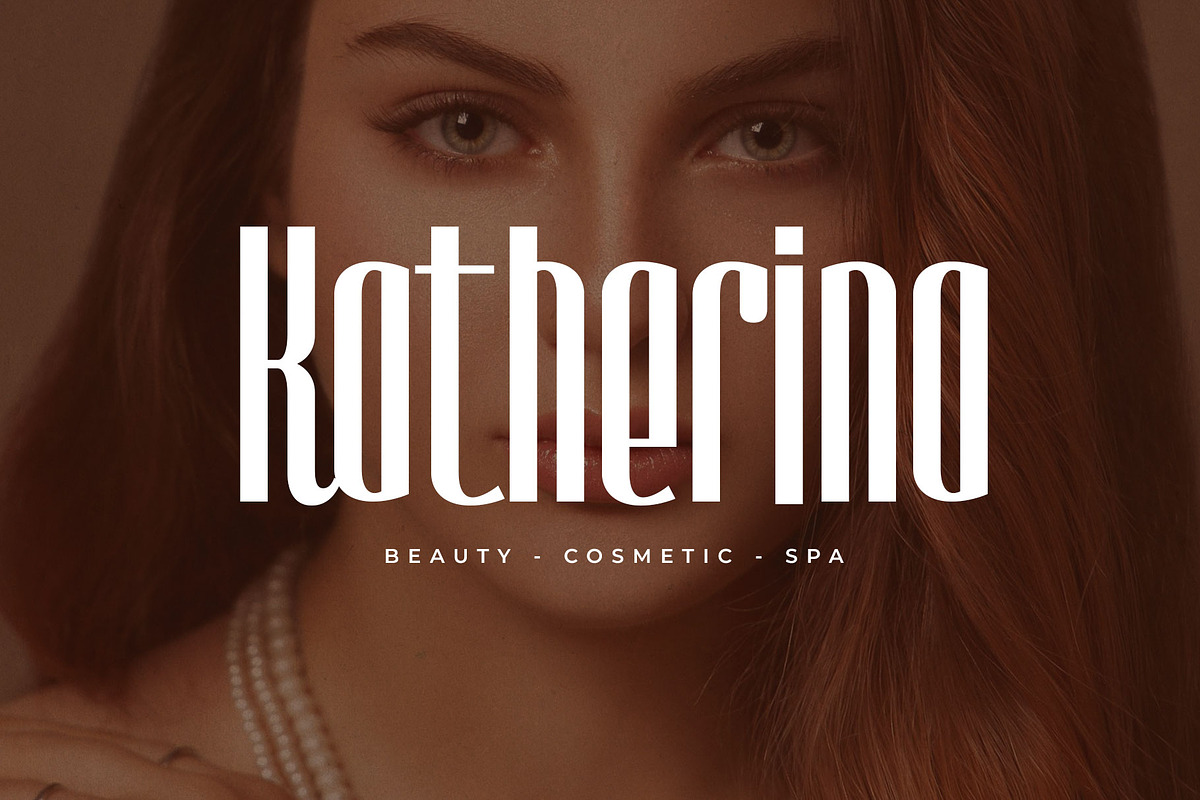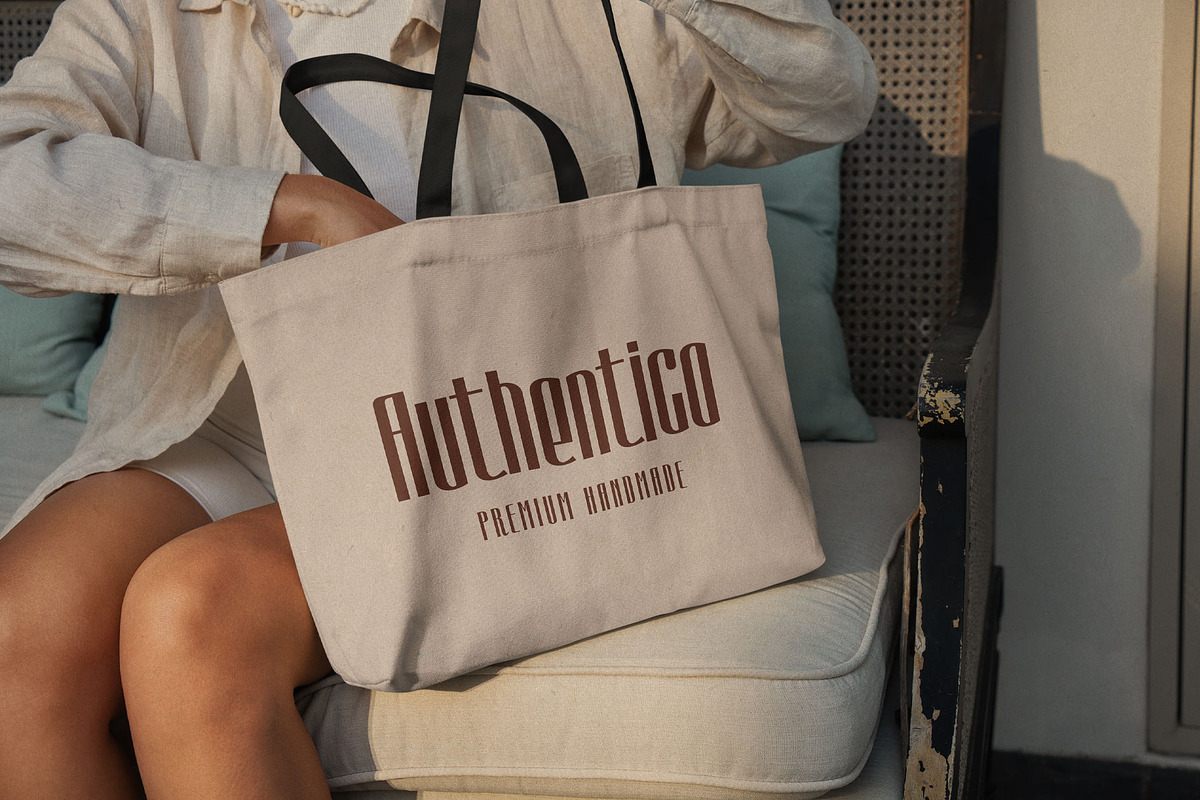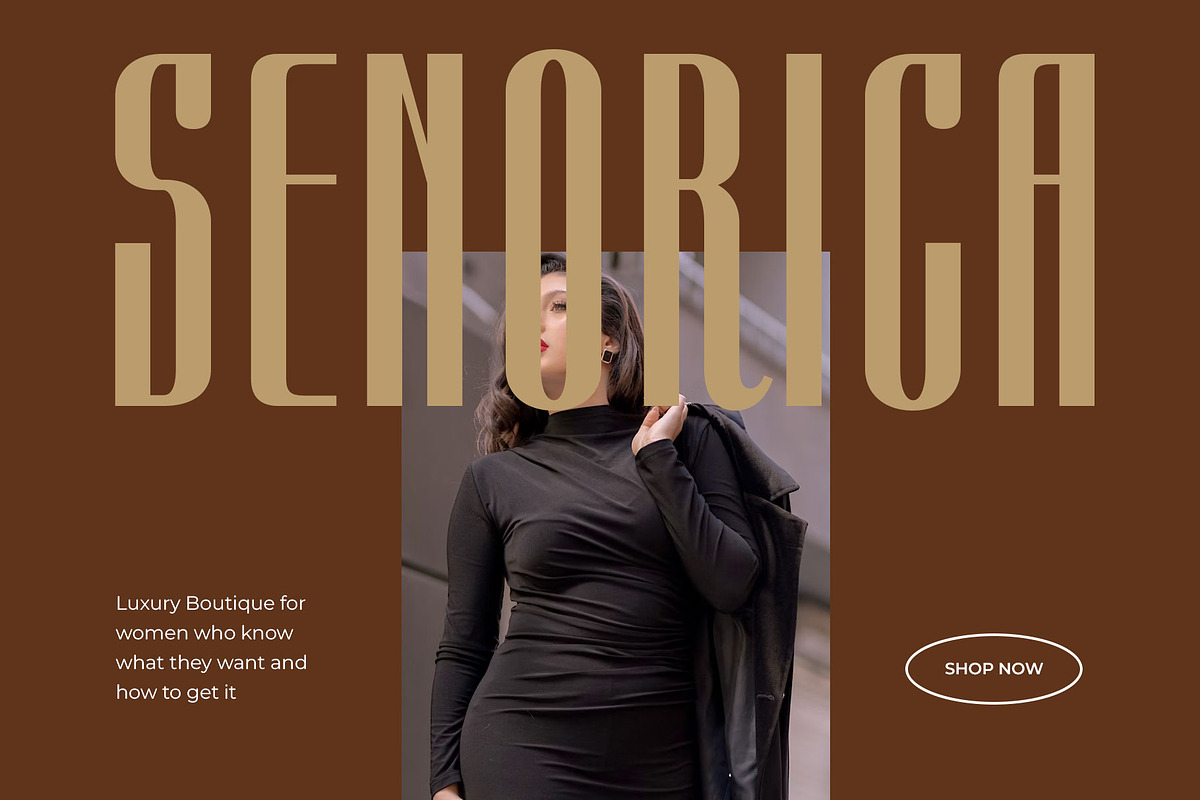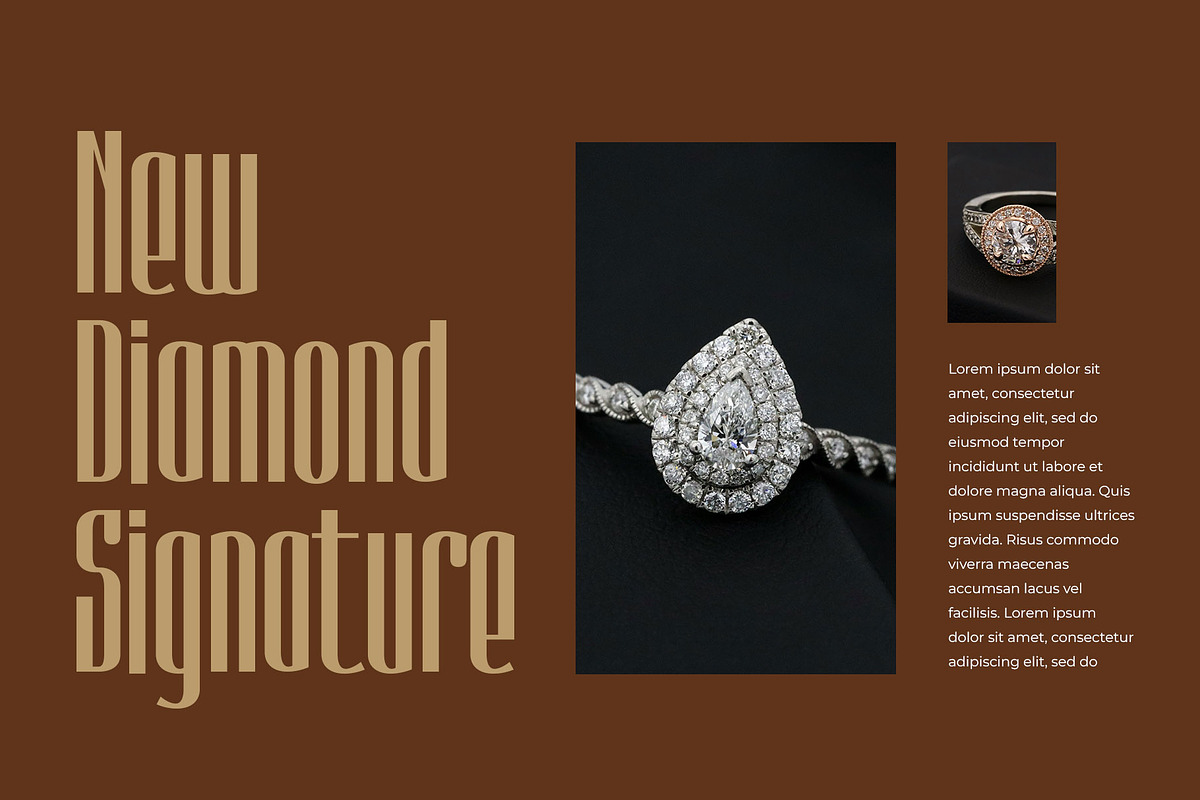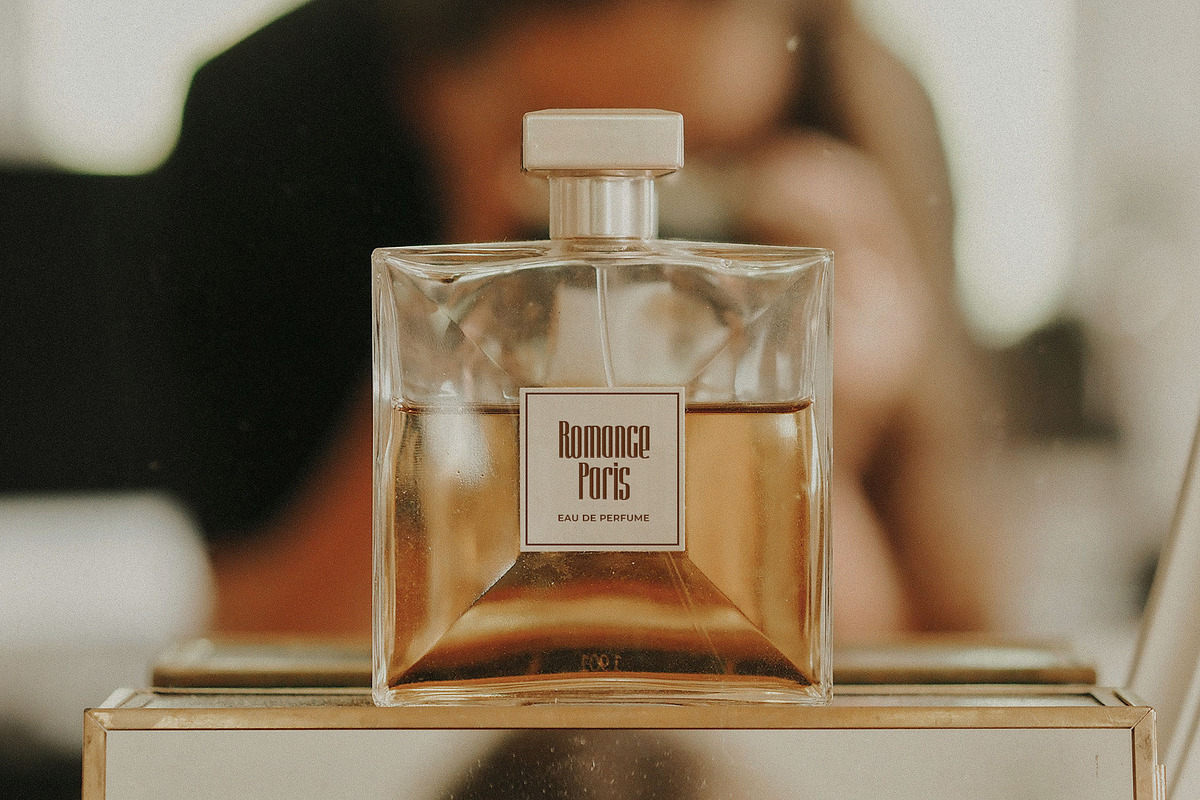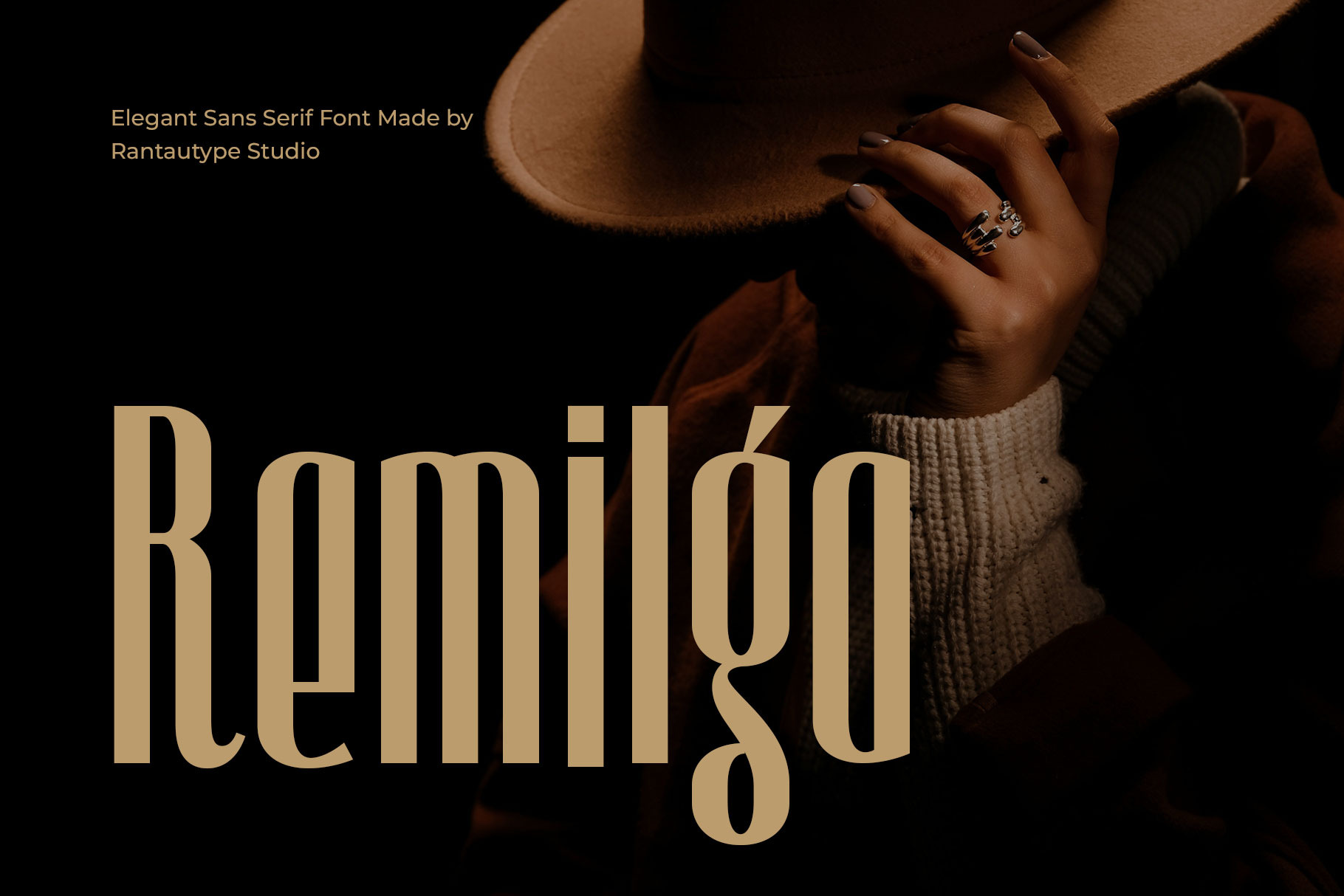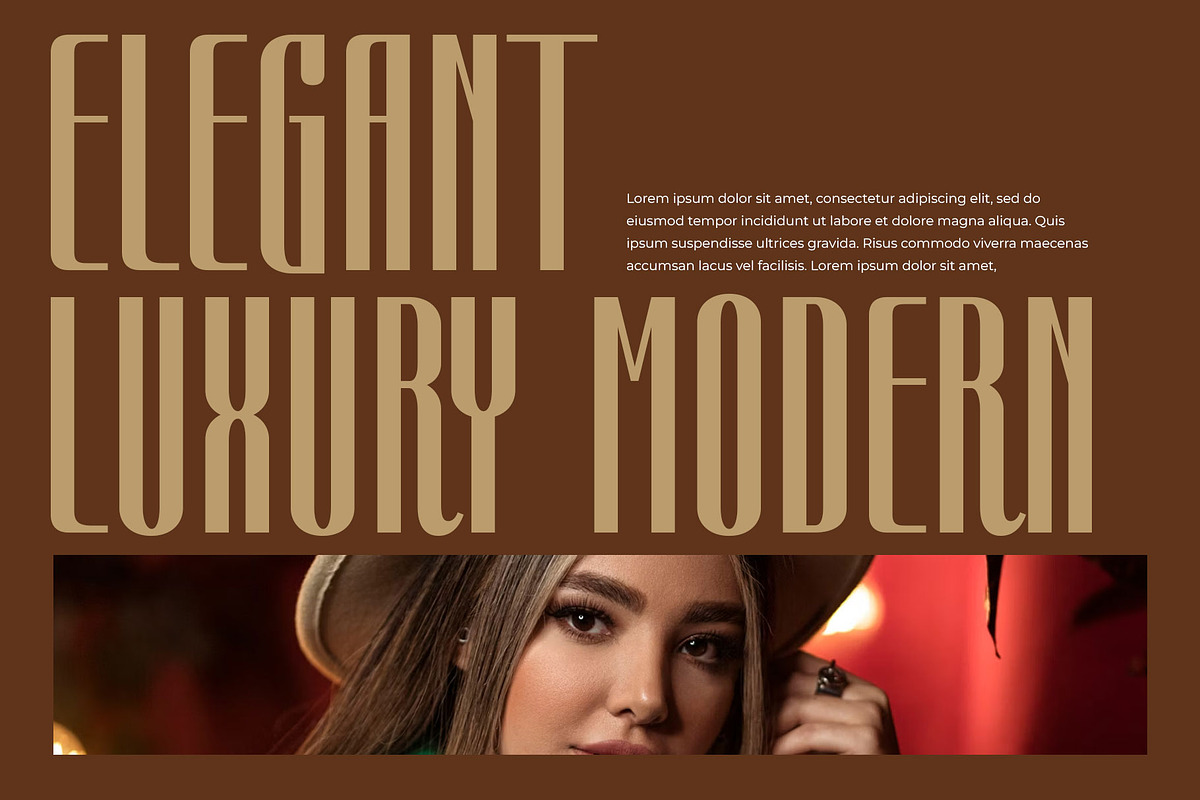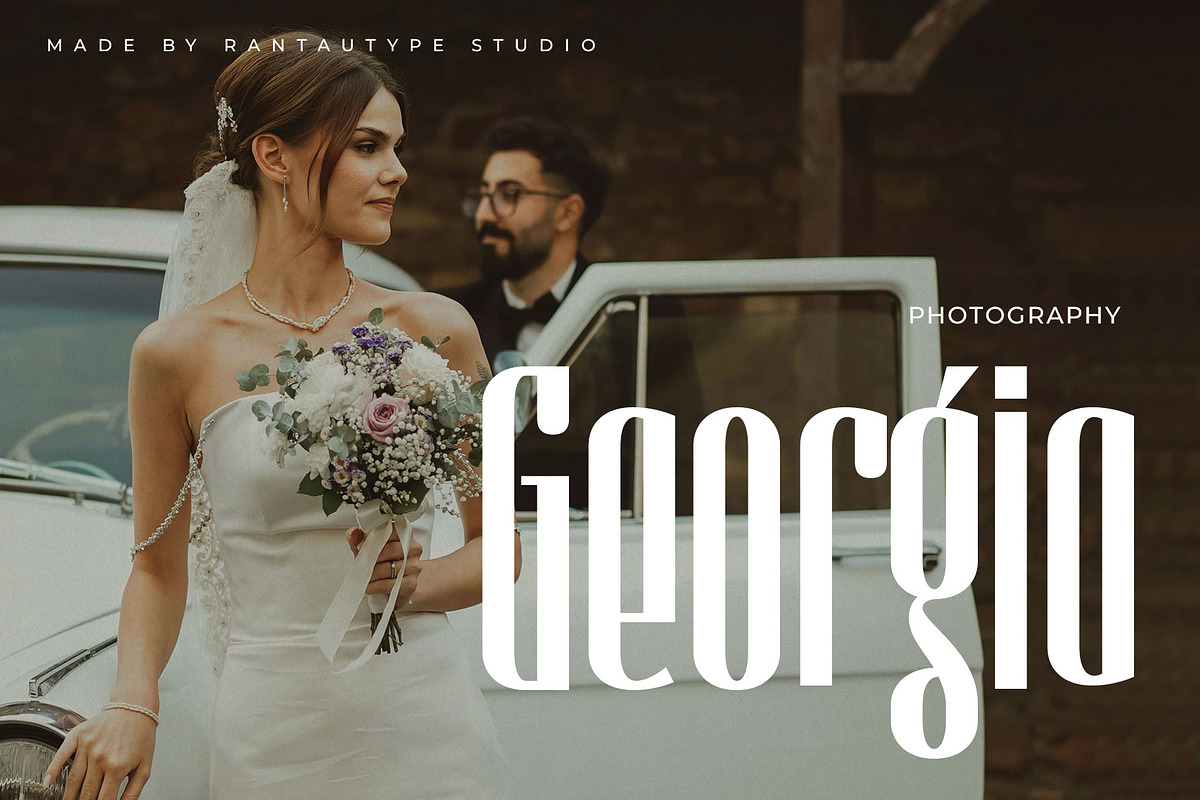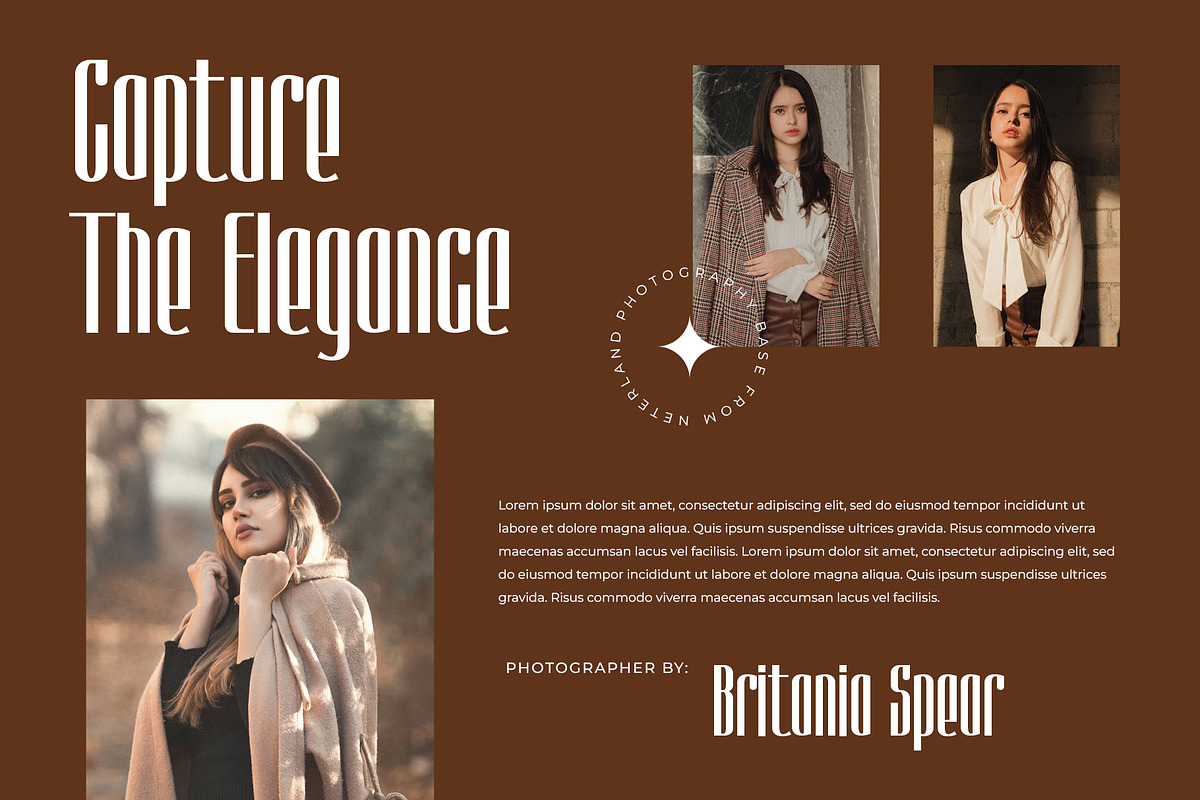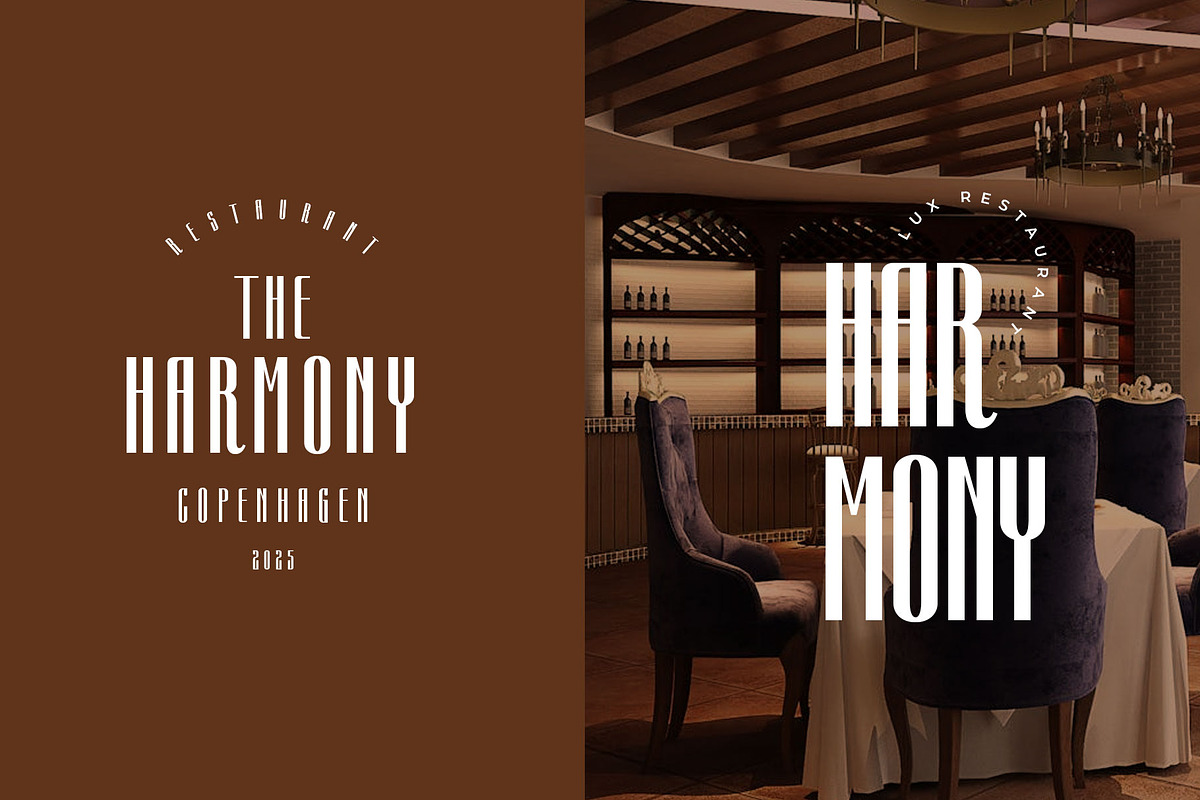
Remilga Elegant Serif Font
Remilga is elegant serif font with tall and strong character. Remilga is a perfectly choice for any creative endeavor, chic, lifestyle design such as logotype, advertisements, watermark on photography, stationery, branding project, display and magazine, invitation, corporate brand, product design, label, business project and many other project with retro touch.